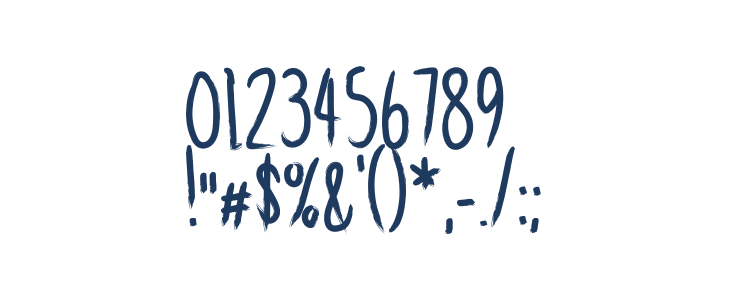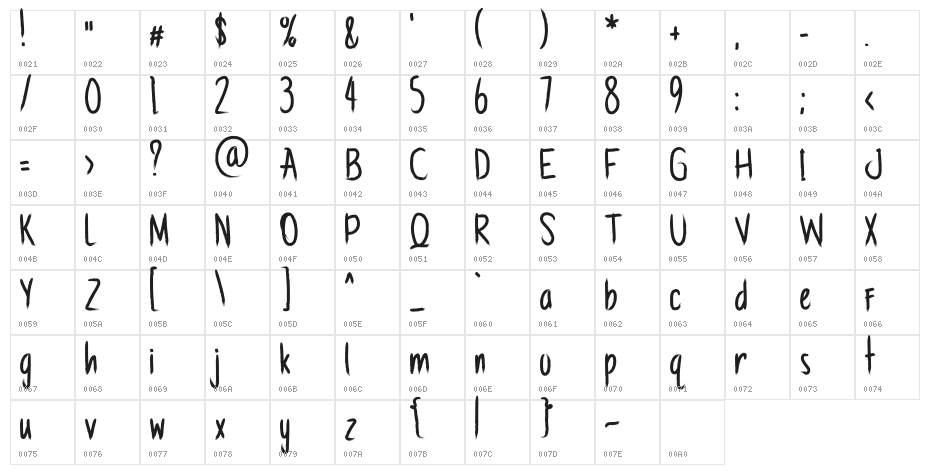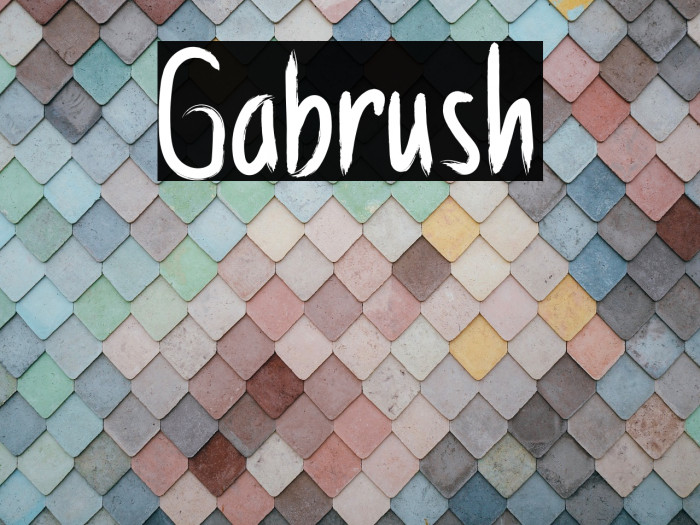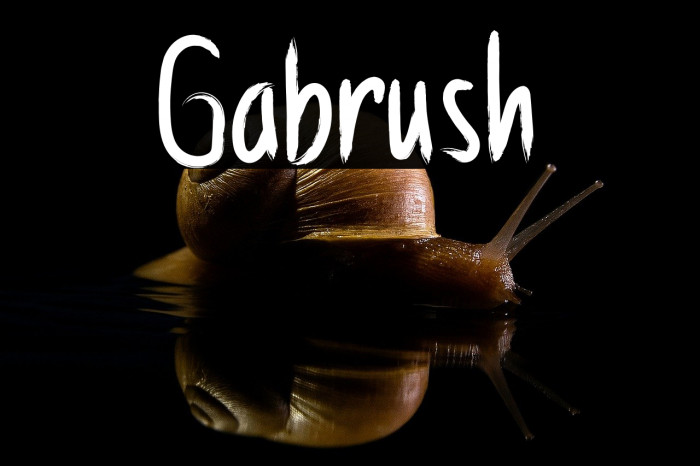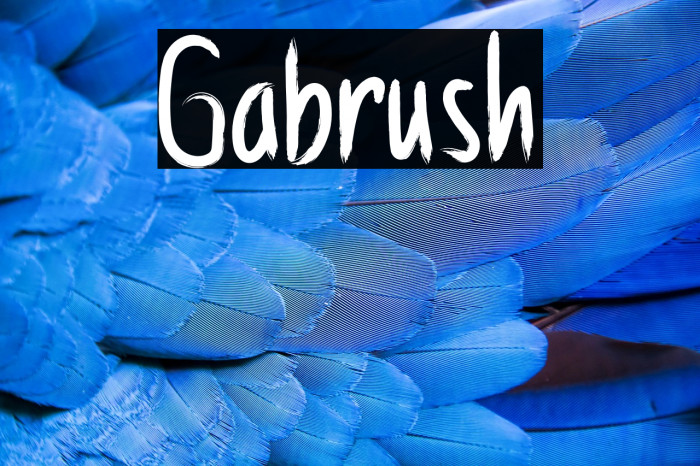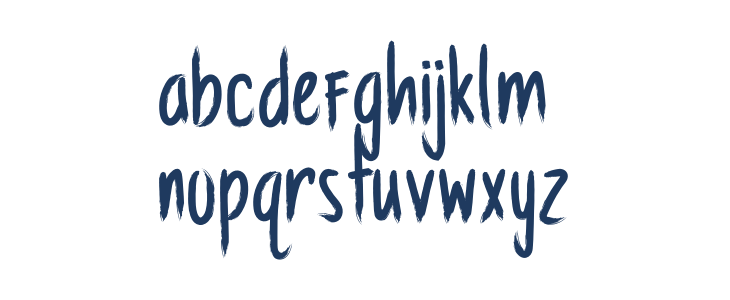
Gabrush Font
Gabrush Description
This font features a bold and expressive brush style, characterized by its dynamic and energetic strokes. The letters have a hand-painted appearance, with varying thickness that adds a sense of movement and fluidity. The uppercase and lowercase letters maintain a consistent style, with elongated forms and slightly irregular edges that enhance its artistic flair. The numbers and special characters follow the same brush-like aesthetic, making the font versatile for creative projects. Its unique style is perfect for capturing attention and conveying a sense of creativity and spontaneity.
| Proposed Projects | Ideal for posters, branding, packaging, and any project that requires a creative and artistic touch. |